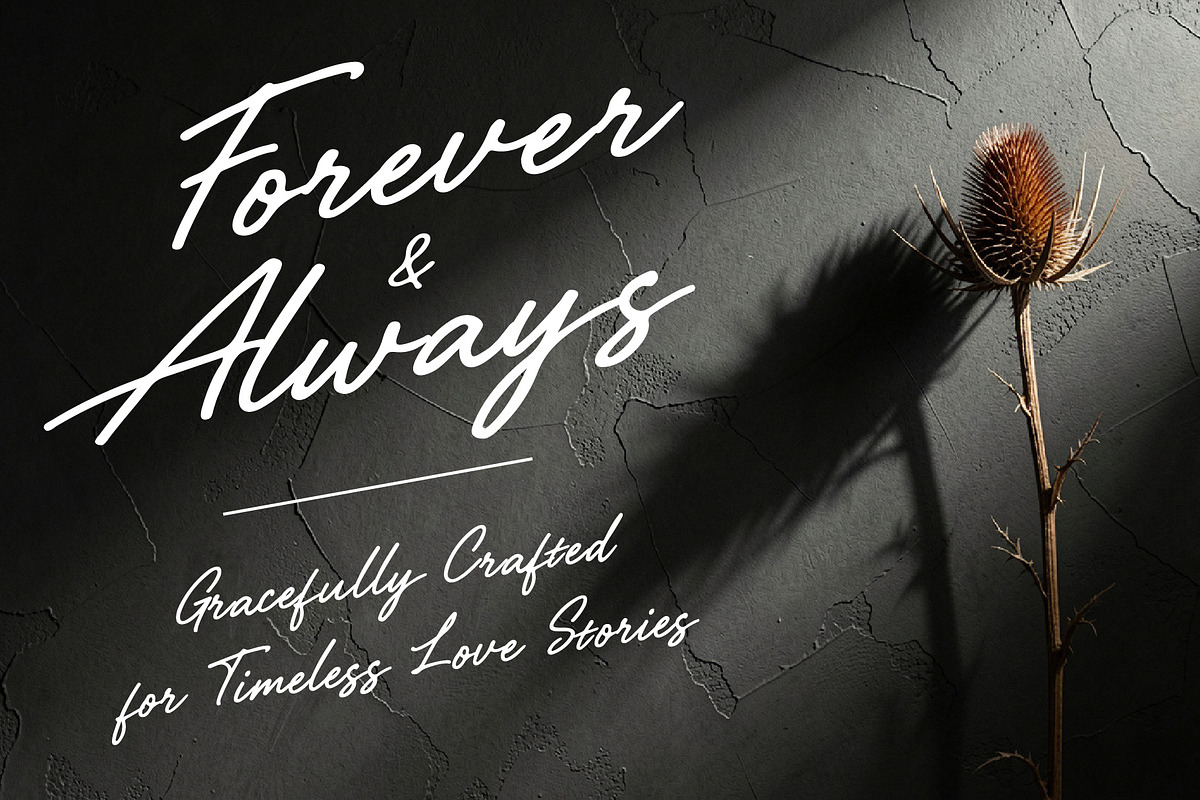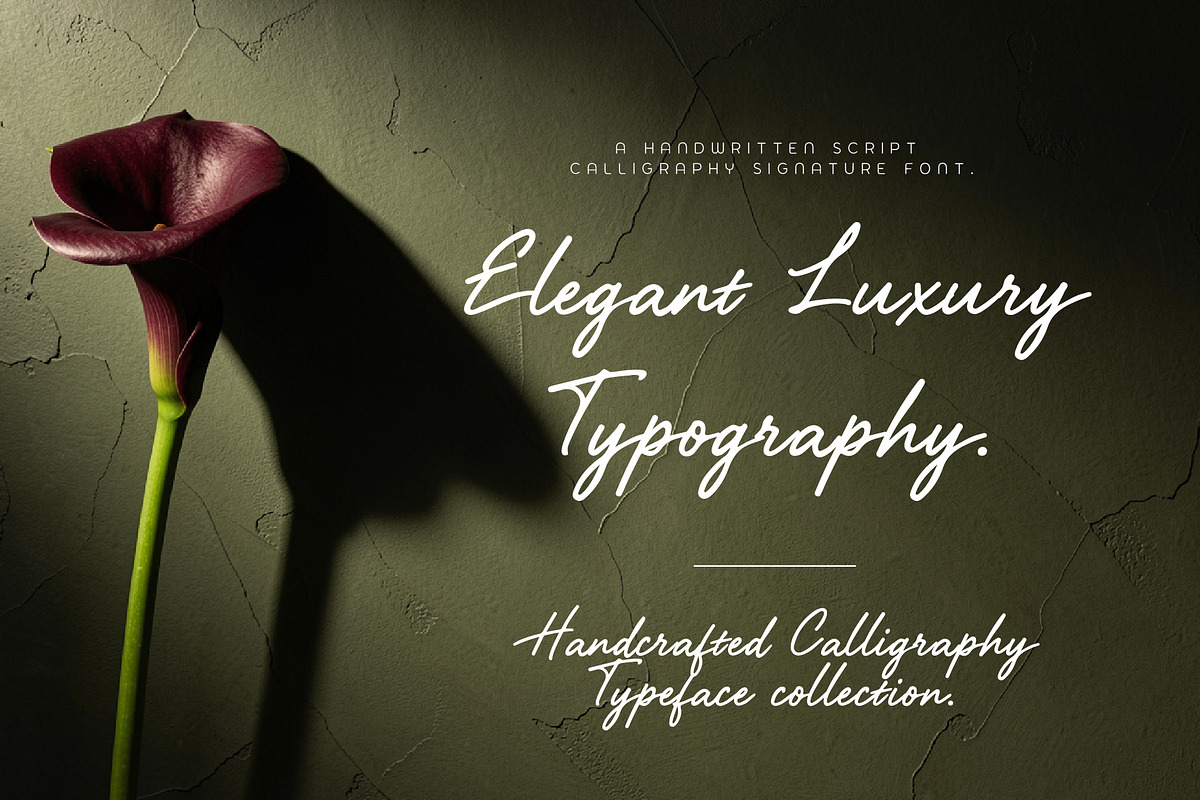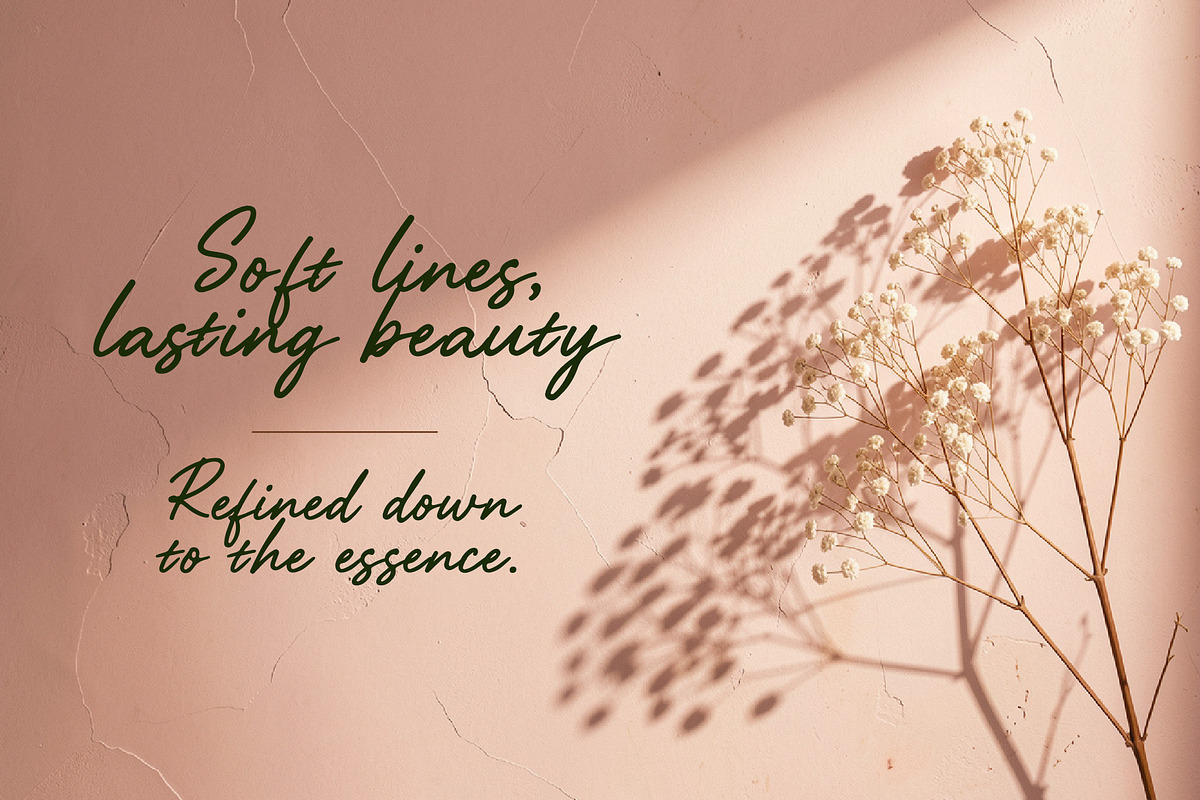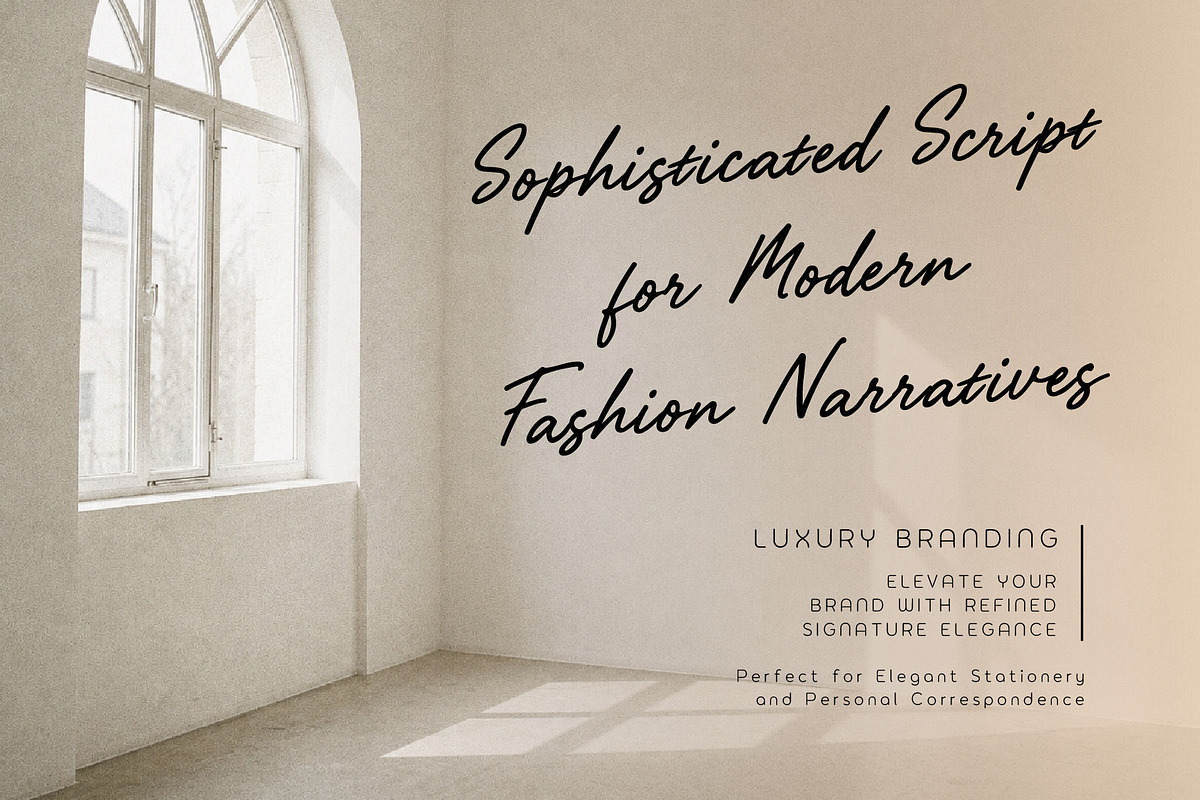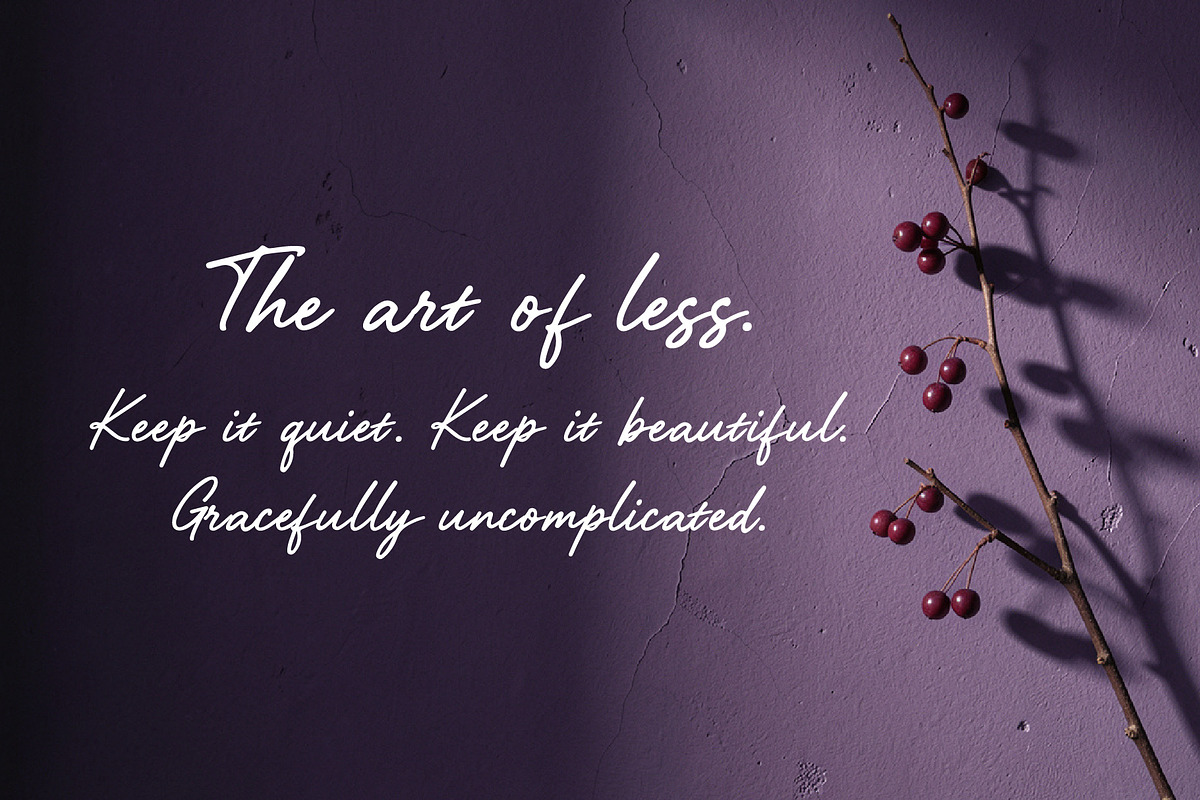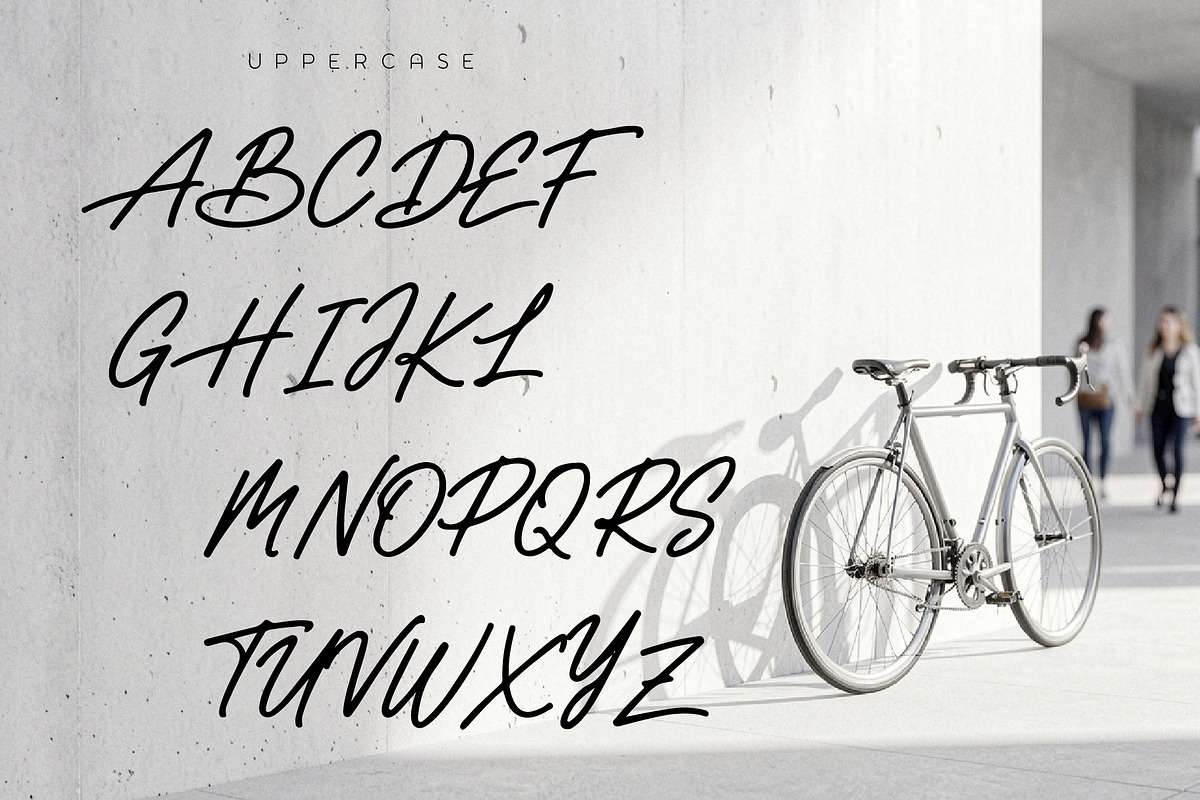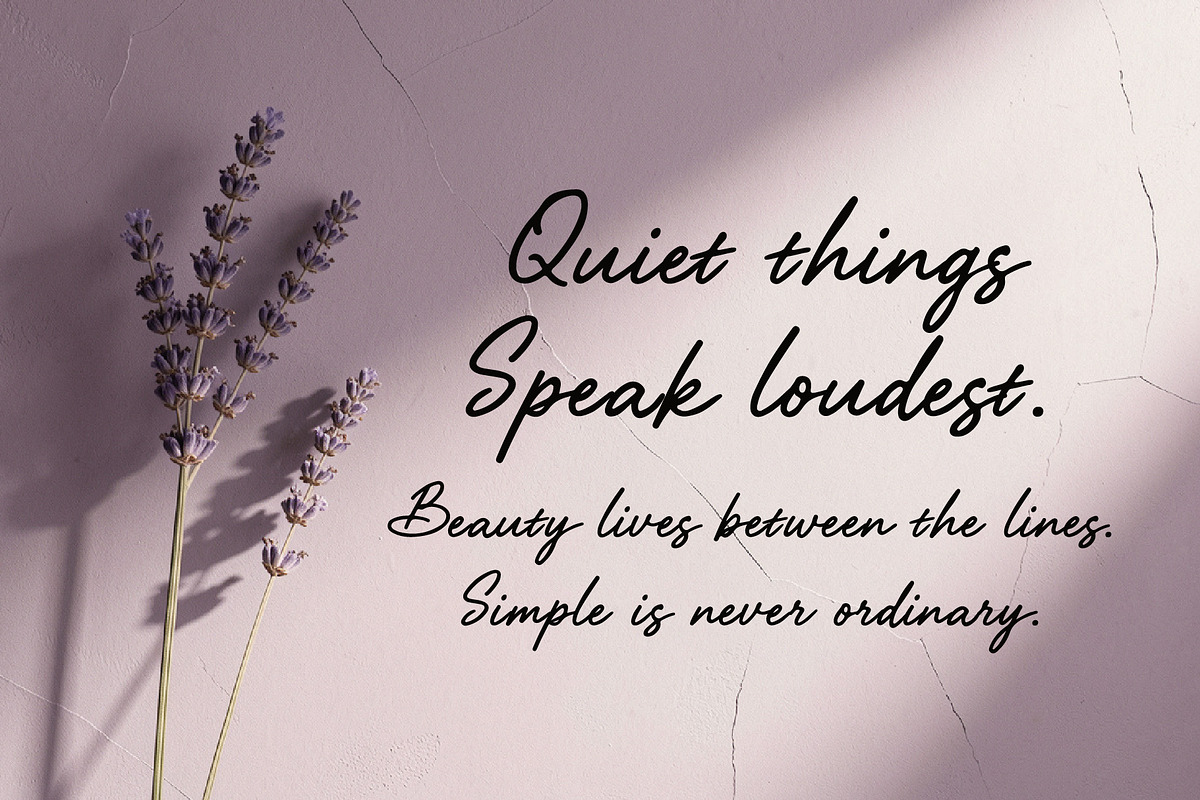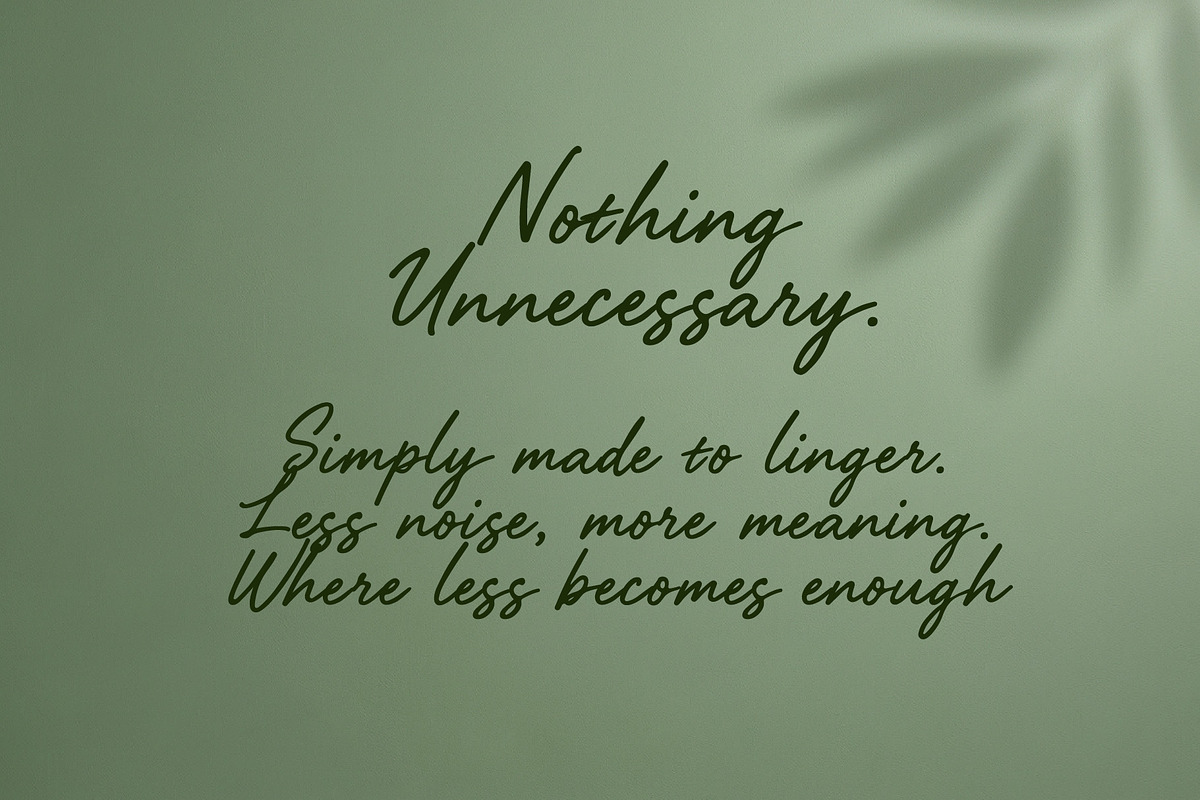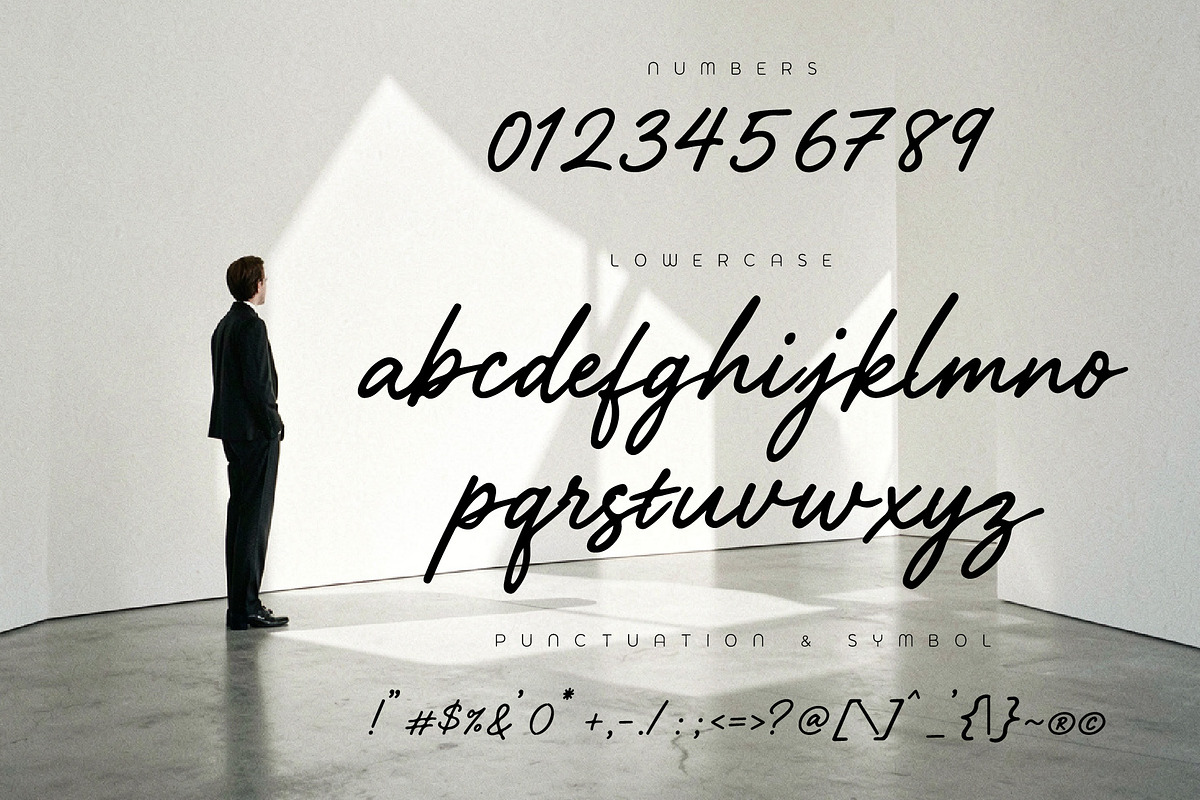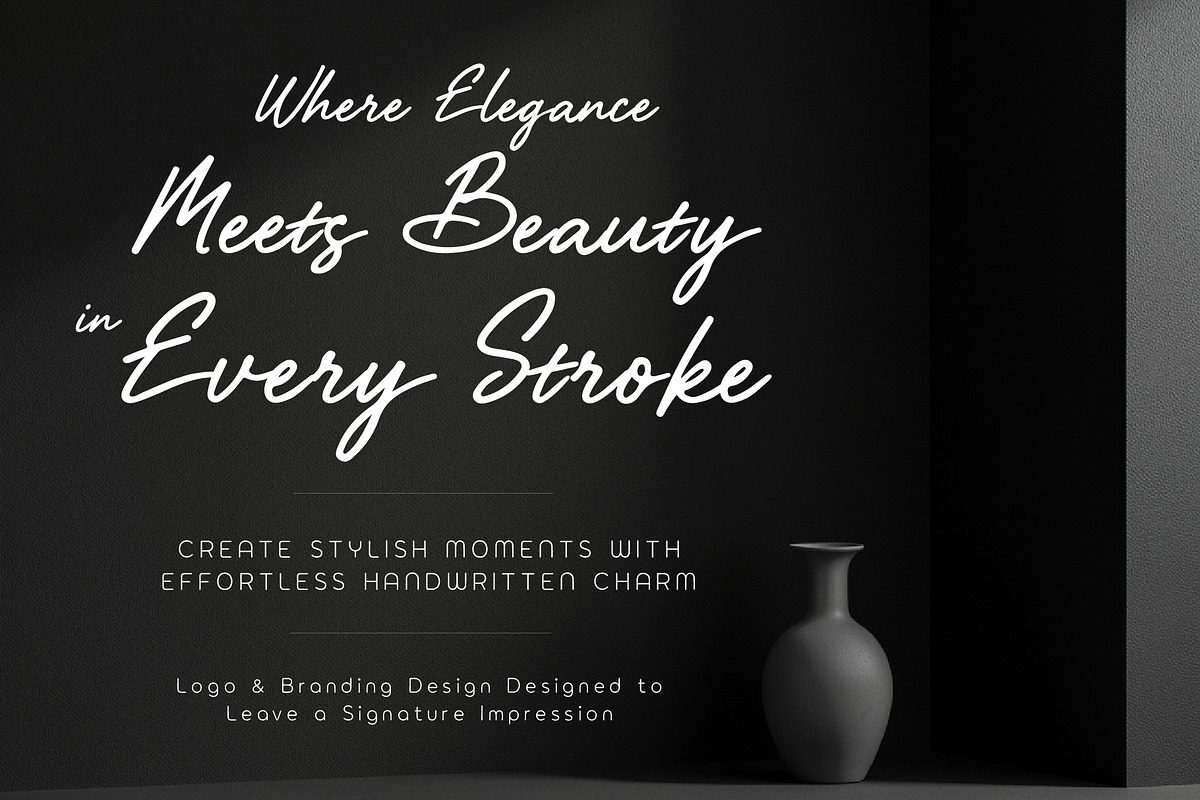
AIRFI - Signature Luxury Handwriten
Introducing Airfi, a luxury handwritten script typeface designed to capture the beauty of authentic signatures and refined calligraphy. Featuring elegant flowing strokes, graceful ligatures, and stylish alternates, Airfi brings a sophisticated and timeless aesthetic to every creative project.
Crafted with a modern luxury feel, this typeface is perfect for branding, logos, fashion editorials, wedding invitations, packaging, social media content, beauty brands, photography watermarks, and premium stationery designs. Its natural handwritten style creates an effortlessly chic and personal touch while maintaining a polished, high end appearance.
Whether you are designing for luxury brands or creating elegant personal projects, Airfi Atelier delivers versatility, charm, and distinctive signature-style elegance.
Elevate your designs with the timeless sophistication of Airfi .